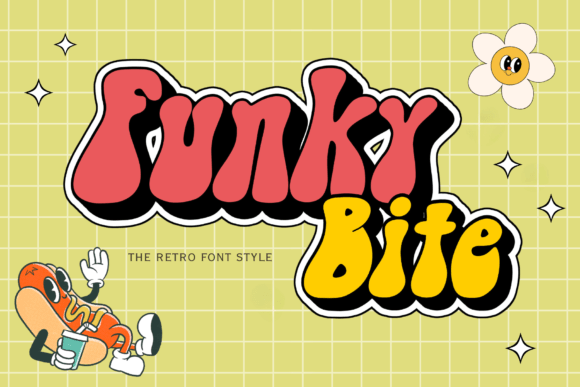
Step into a realm of vibrant nostalgia with Funky Bite Font, a bold and captivating display font that catapults you back to the electrifying Y2K era. This font embodies the energy and playfulness of the early 2000s, injecting a surge of retro charm into your designs.
With its chunky letterforms and quirky details, Funky Bite demands attention, making it the perfect choice for projects seeking a touch of boldness and nostalgic flair. Picture eye-catching posters, vibrant album covers, or any design that craves a splash of Y2K vibrancy.
Funky Bite is not just a font; it's a time capsule, transporting you to an era of bold fashion, energetic music, and a sense of optimism that defined a generation. Unleash your creativity and let Funky Bite infuse your designs with the infectious spirit of the Y2K era.
Embrace the Funky Bite experience and watch your designs come alive with a burst of retro energy. Dive into the world of Funky Bite and ignite your imagination with its captivating style.